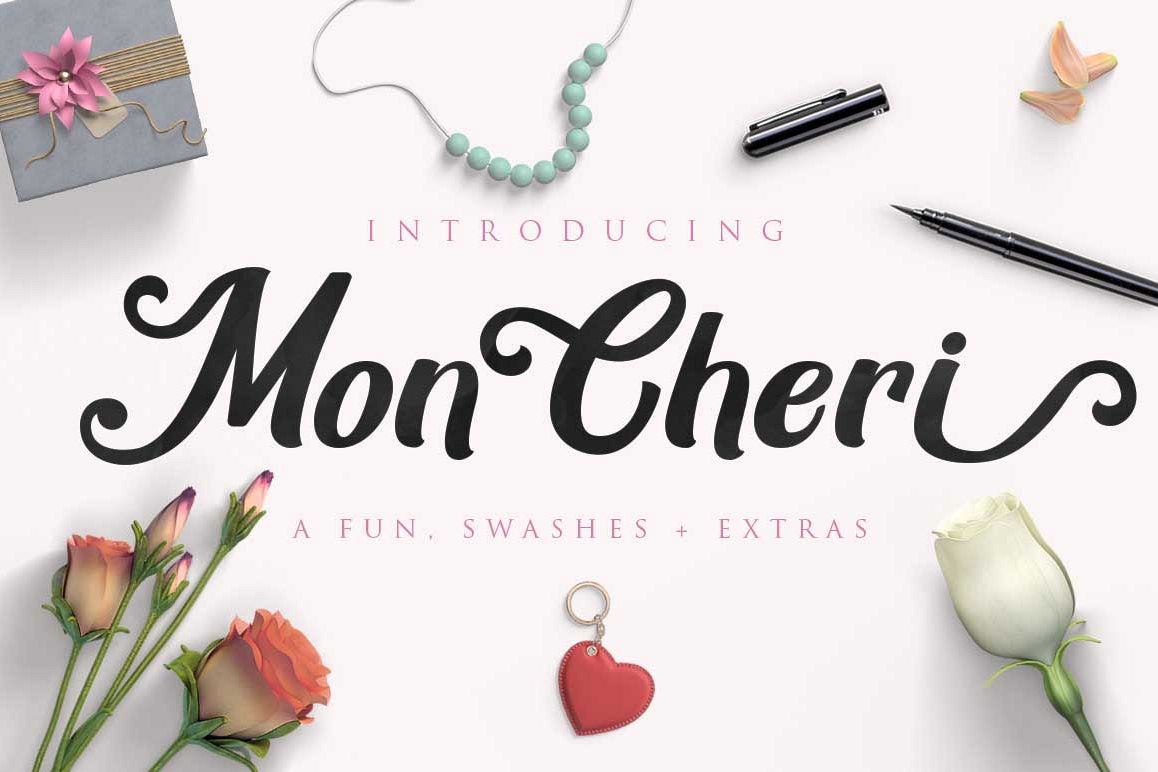
Mon Cheri Typeface + Extras
Introducing the Mon Cheri Typeface. made with love design harmony in every single character. Mon CheriTypeface and a touch of the extras makes this font look great and stylist. Plus the OpenType features that allows you to mix and match pairs of letters to fit your design.